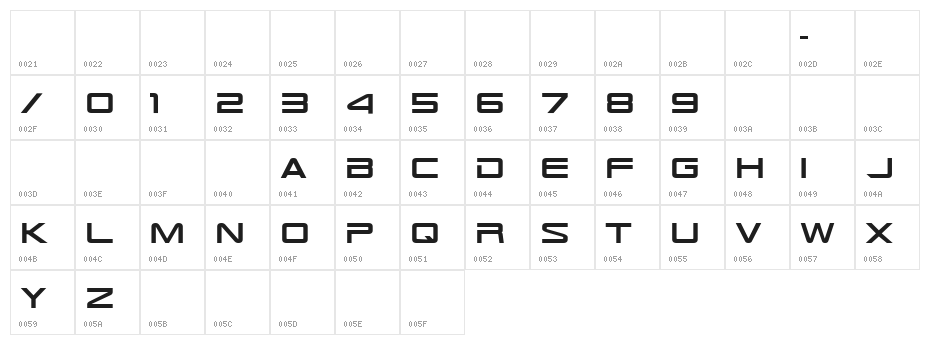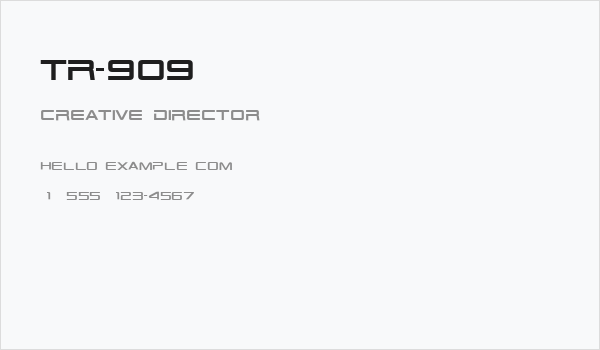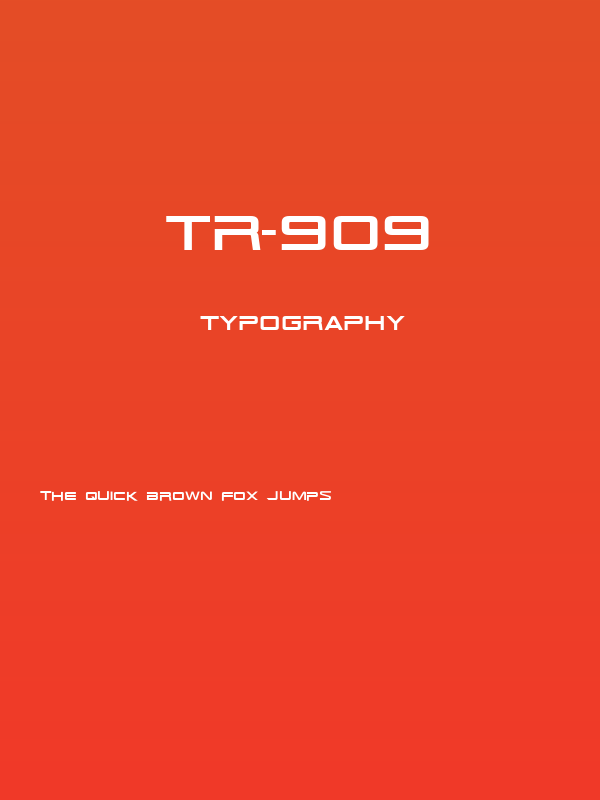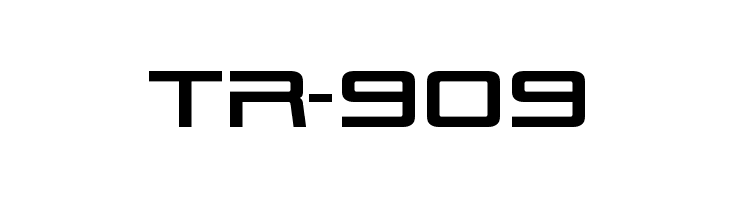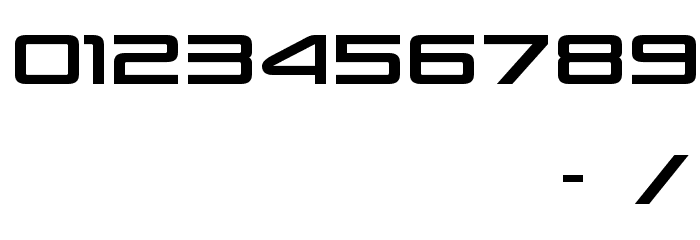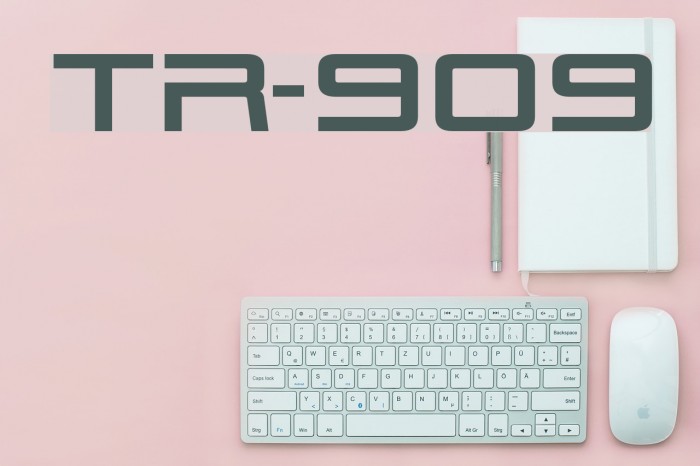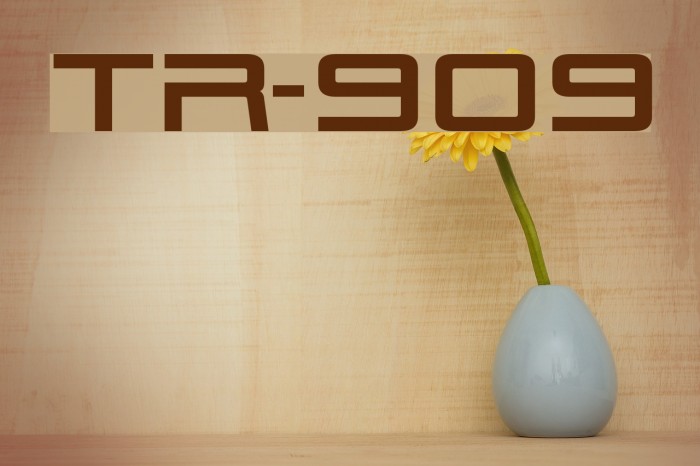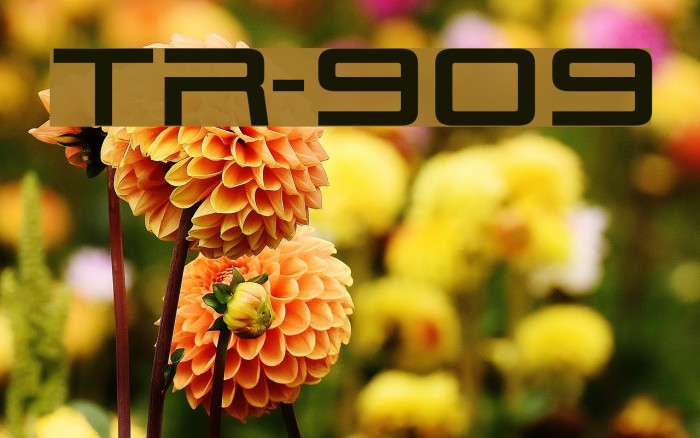
TR-909 Font
TR-909 Description
This font features a geometric and modern design with a futuristic aesthetic. The characters are constructed with clean, straight lines and sharp angles, giving it a technical and digital feel. The uppercase letters are uniform in height, while the numerals and special characters maintain a consistent style, enhancing readability. The font's structure is bold and impactful, making it suitable for attention-grabbing designs. Its distinct appearance is reminiscent of digital displays and electronic interfaces, making it ideal for projects that require a contemporary and tech-savvy look.
| Proposed Projects | Ideal for technology branding, digital interfaces, video game design, and futuristic-themed posters. |